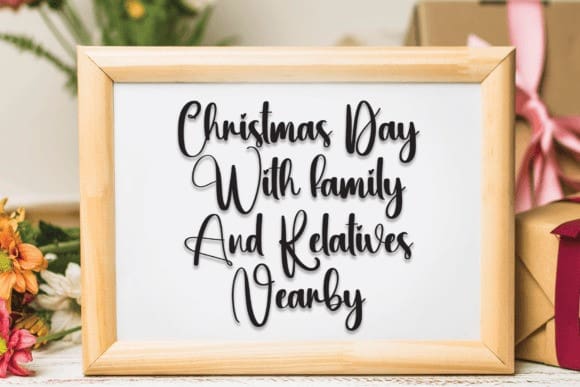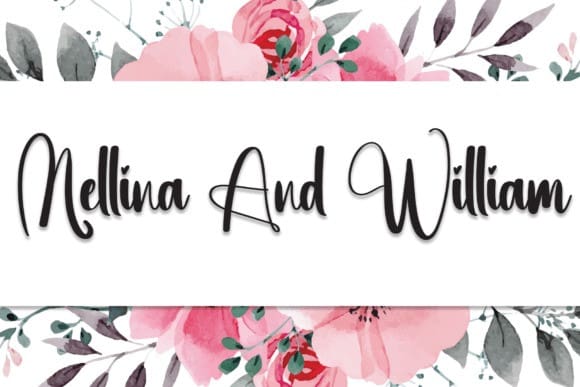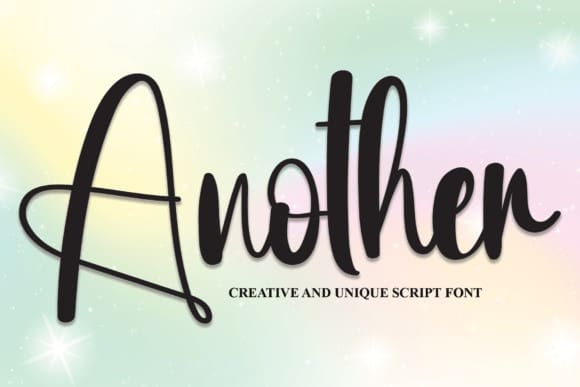
Another Script Typeface
Another Script Typeface, perfect for wall displays, wedding invitations, social media post logos, advertisements, product packaging, product designs, labels, photography, watermarks, invitations, stationery, and any project that requires a taste for handwriting.